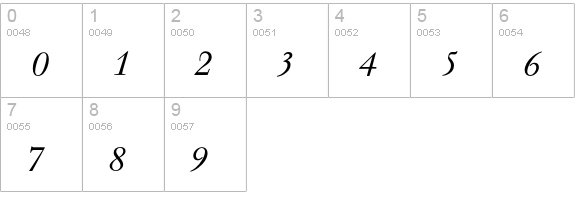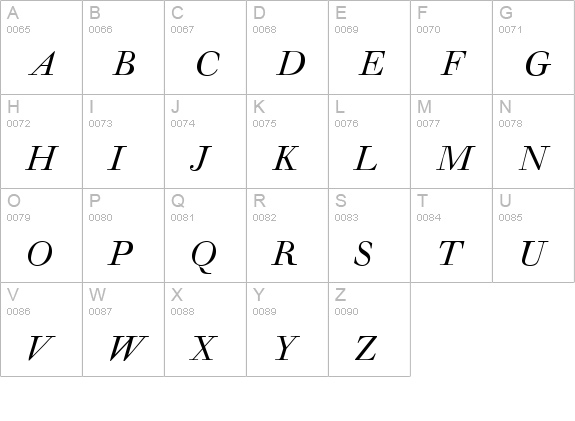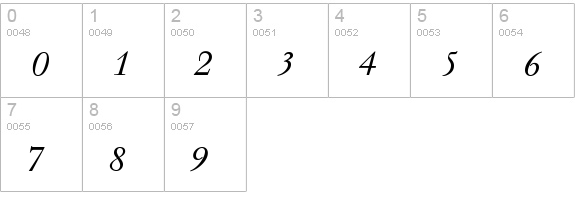
Walbaum Italic is a distinctive, italic variant in the Walbaum typeface family \xE2\x80\x94 well suited to design and typography projects.
The Walbaum Italic font exudes elegance and sophistication with its graceful, slanted appearance. Its flowing curves and delicate lines lend a sense of refinement to any design project. Whether used for formal invitations, editorial layouts, or branding materials, Walbaum Italic adds a touch of classic beauty. This exquisite font is generously offered for free download at FontsMarket.com, making it easily accessible for designers and creatives looking to elevate their work with a touch of timeless style. Embrace the timeless charm of Walbaum Italic and bring a touch of sophistication to your projects today.